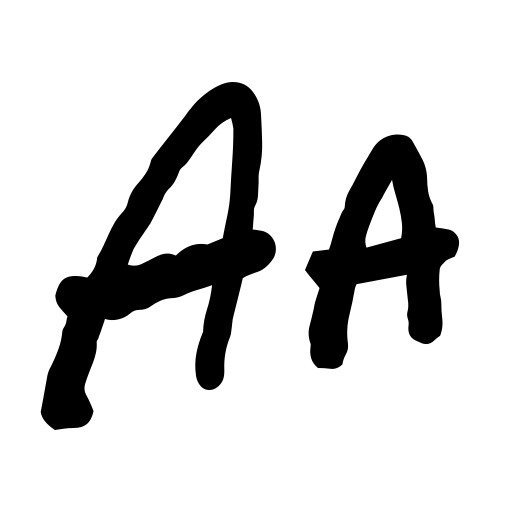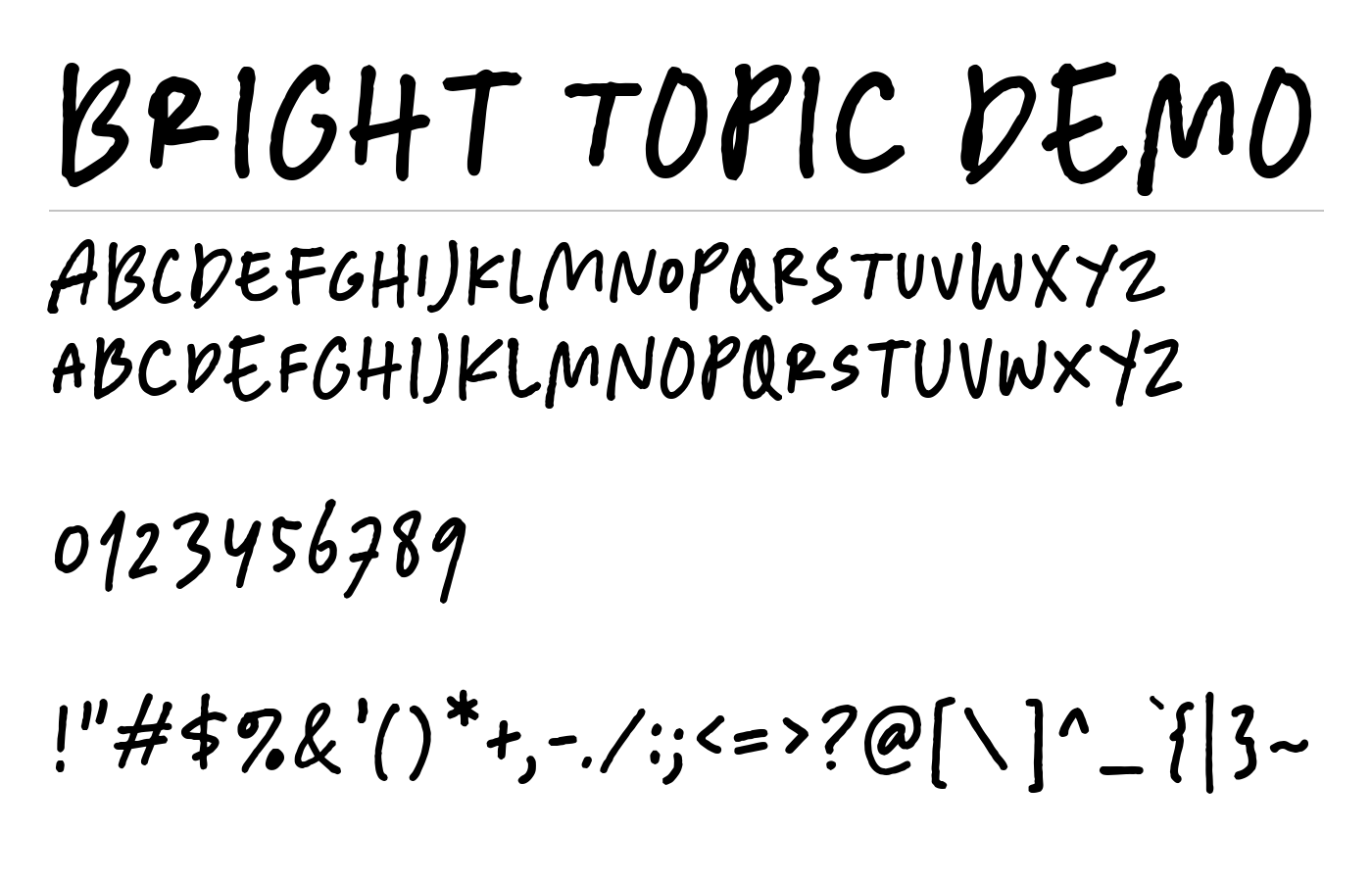
Bright Topic Demo is a lively, handwritten sans serif font with a casual and energetic feel. Its uneven strokes and slightly irregular letterforms give it a personal, approachable character, making it ideal for creative projects, informal branding, and playful headlines. This font works well where a friendly, authentic touch is needed to engage audiences in a fun and relaxed way.
Bright Topic Demo Font
About Bright Topic Demo Font